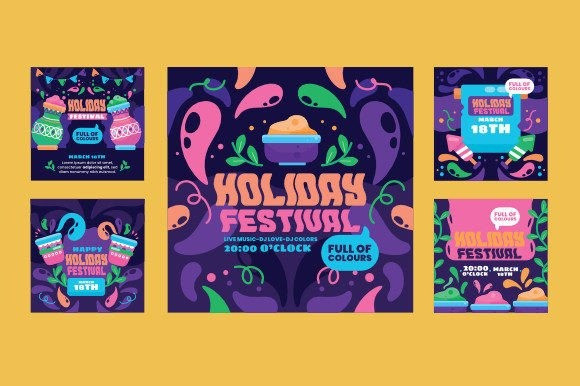
Dynamic Wave Font
Dynamic Wave Font is a funky and wavy display font. Its retro and groovy vibe is suitable for a wide range of hippie designs!  Perfectly fit for branding, logo, wedding things, greeting cards, fashion, lookbook, marketing promotion, anytime you want to look fancy elegant but still casual.